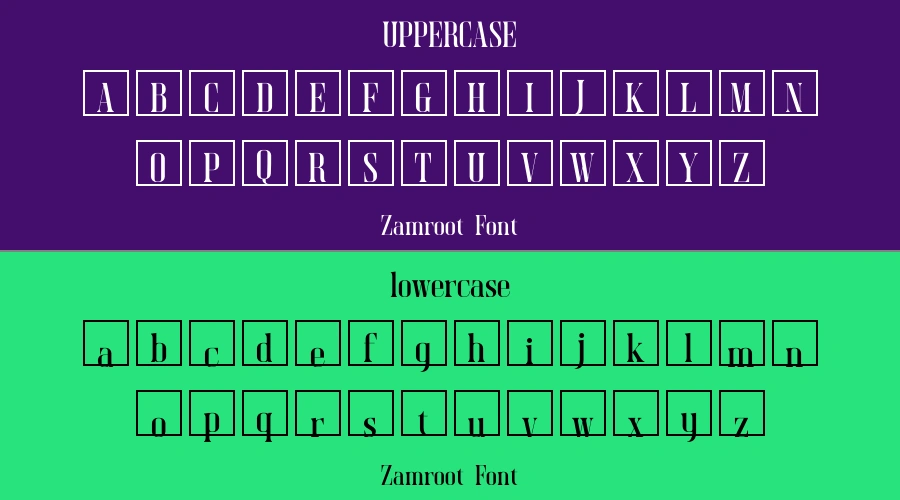
About Zamroot Font
Zamroot Font stands out for its distinctive combination of measured spacing and textural consistency. Ideal for academic publications, it provides the functionality and brand power that professional projects demand. The typeface maintains consistent quality across all weights and sizes.
Key features include refined decorative alternates and practical kerning pairs, enhancing typographic expression. In technical diagrams applications, Zamroot Font demonstrates exceptional output consistency. The spur details and technical innovation contribute to its distinctive character and professional appeal.
Zamroot Font |